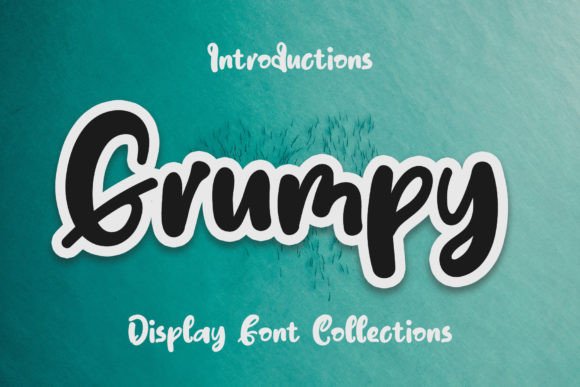
Introducing Grumpy Font: The Playfully Handmade Display Font to Elevate Your Designs
In the world of typography, fonts play a crucial role in bringing creative ideas to life. A well-designed font can instantly elevate a design, making it more engaging, visually appealing, and effective in communicating the intended message. If you’re looking for a font that can add a playful touch to your designs, look no further than Grumpy Font. In this article, we’ll explore the unique features of Grumpy Font, its benefits, and how it can help you take your designs to the next level.
What is Grumpy Font?
Grumpy Font is a beautifully crafted, playfully handmade display font that is designed to bring a touch of whimsy and fun to any design project. With its incredibly playful handwritten style, Grumpy Font is perfect for designers who want to add a personal and creative touch to their work. Whether you’re designing a logo, creating a social media graphic, or working on a branding project, Grumpy Font is the ideal choice.
Key Features of Grumpy Font
- Playfully Handmade: Grumpy Font is carefully crafted with a personal touch, giving it a unique and distinctive feel.
- Incredibly Playful: The font’s playful handwritten style makes it perfect for designs that require a touch of whimsy and fun.
- Display Font: Grumpy Font is designed as a display font, making it ideal for headlines, titles, and other prominent design elements.
- Highly Versatile: The font can be used in a wide range of design projects, from logos and branding to social media graphics and more.
Benefits of Using Grumpy Font
So, why should you choose Grumpy Font for your design projects? Here are just a few benefits of using this amazing font:
- Adds a Personal Touch: Grumpy Font’s handmade style gives your designs a personal and unique feel that sets them apart from the rest.
- Increases Engagement: The playful and whimsical nature of Grumpy Font can help increase engagement and capture the attention of your audience.
- Elevates Your Designs: With Grumpy Font, you can take your designs to the next level, making them more visually appealing and effective in communicating your message.
- Perfect for Branding: Grumpy Font is ideal for branding projects, as it can help create a unique and memorable visual identity for your brand.
Design Tips for Using Grumpy Font
To get the most out of Grumpy Font, here are some design tips to keep in mind:
- Use it as a Display Font: Grumpy Font is designed as a display font, so use it to create eye-catching headlines and titles.
- Experiment with Colors: Grumpy Font looks great in a variety of colors, so don’t be afraid to experiment and find the perfect color scheme for your design.
- Pair it with Other Fonts: Grumpy Font can be paired with other fonts to create a unique and visually appealing typography combination.
- Keep it Simple: Don’t overcomplicate your design. Keep it simple and let Grumpy Font’s playful style shine through.
What Designers Say About Grumpy Font
Grumpy Font is a game-changer for my design projects. Its playful style and handmade feel make it perfect for adding a personal touch to my work.” – Emily R.
In conclusion, Grumpy Font is a unique and versatile display font that can add a playful touch to any design project. With its handmade style, incredibly playful handwritten font, and highly versatile nature, Grumpy Font is perfect for designers who want to elevate their designs and bring their creative ideas to life. Whether you’re designing a logo, creating a social media graphic, or working on a branding project, Grumpy Font is the ideal choice.